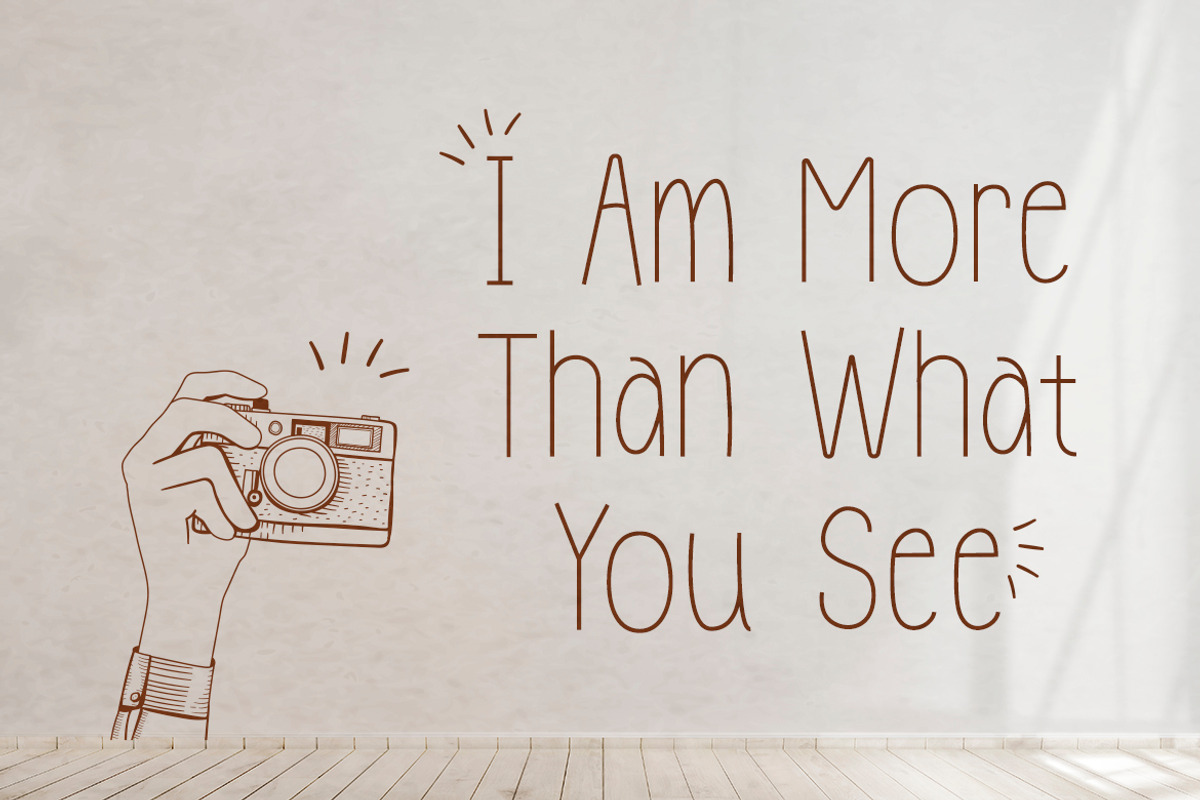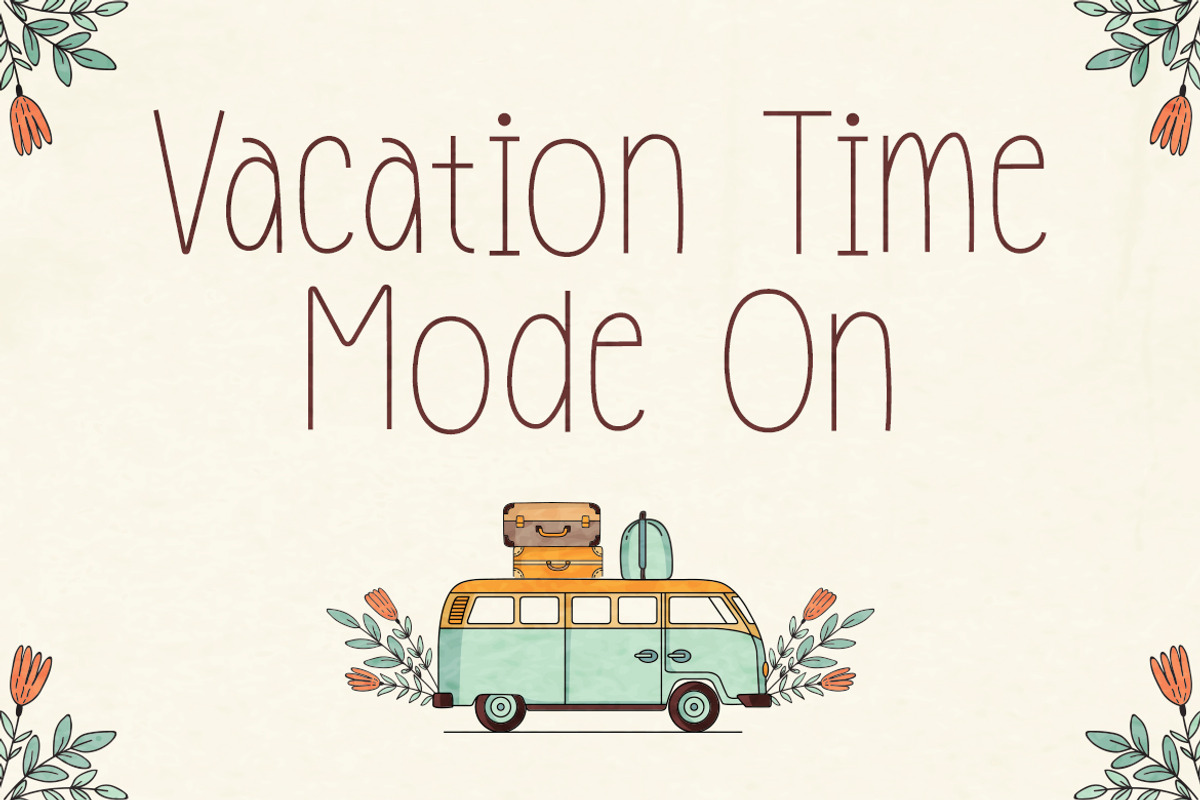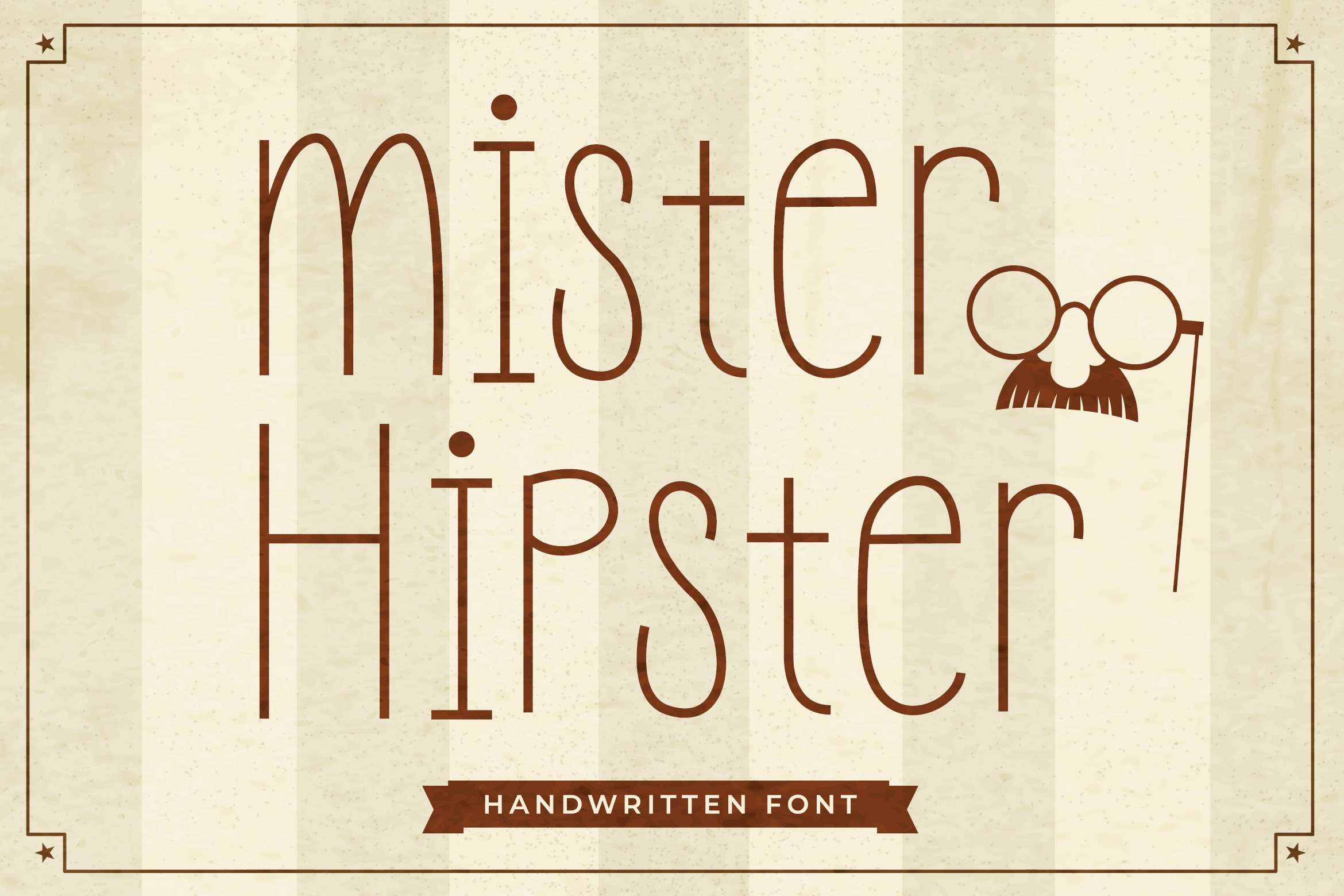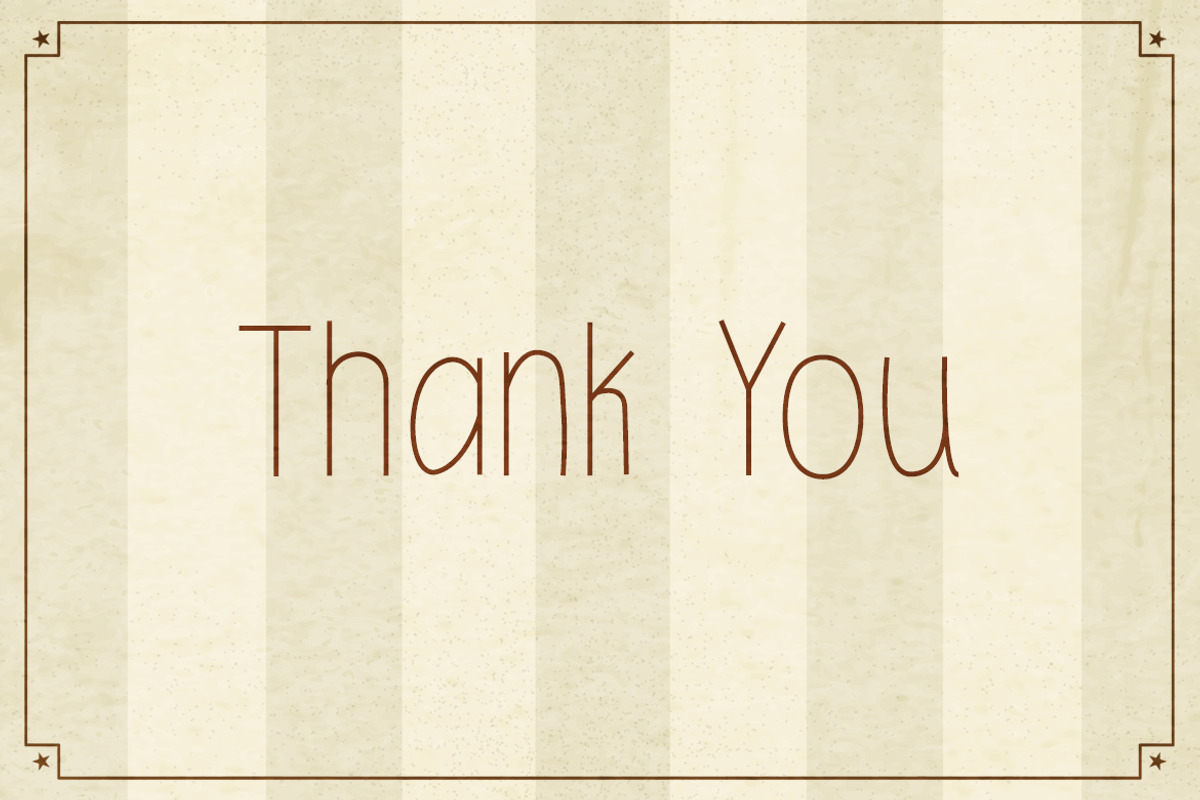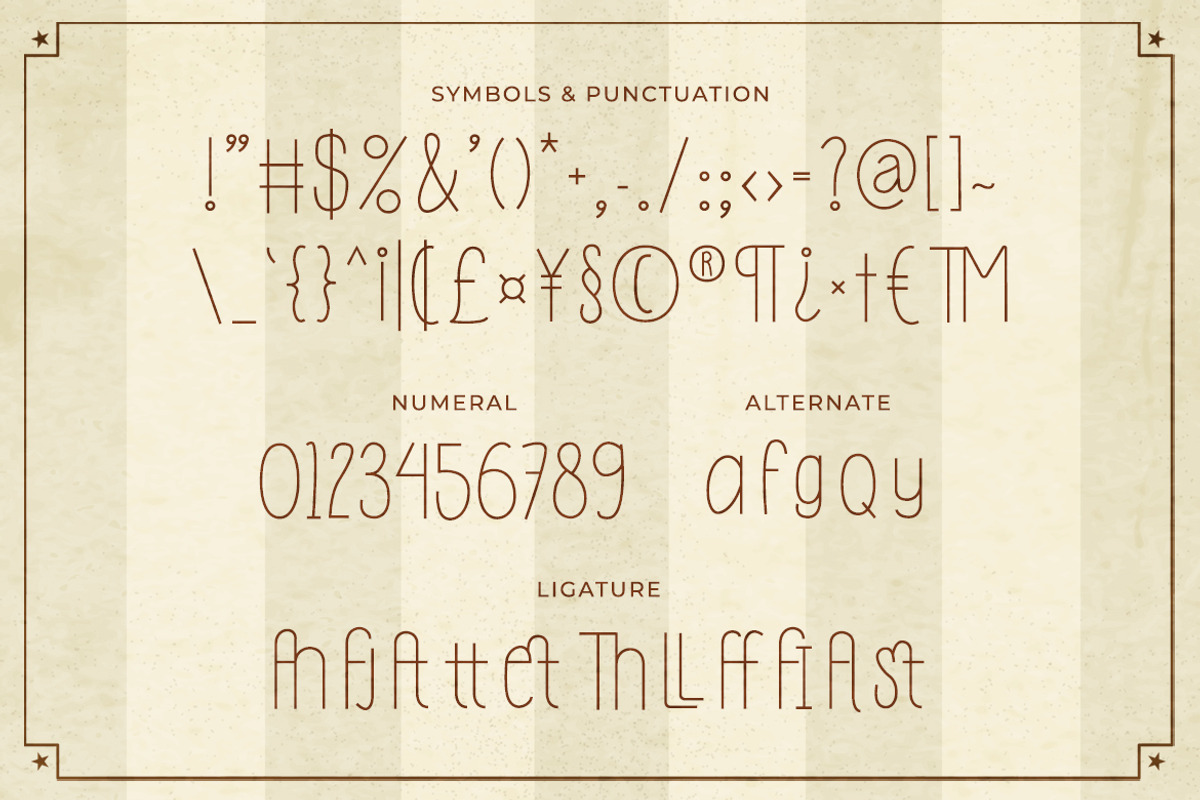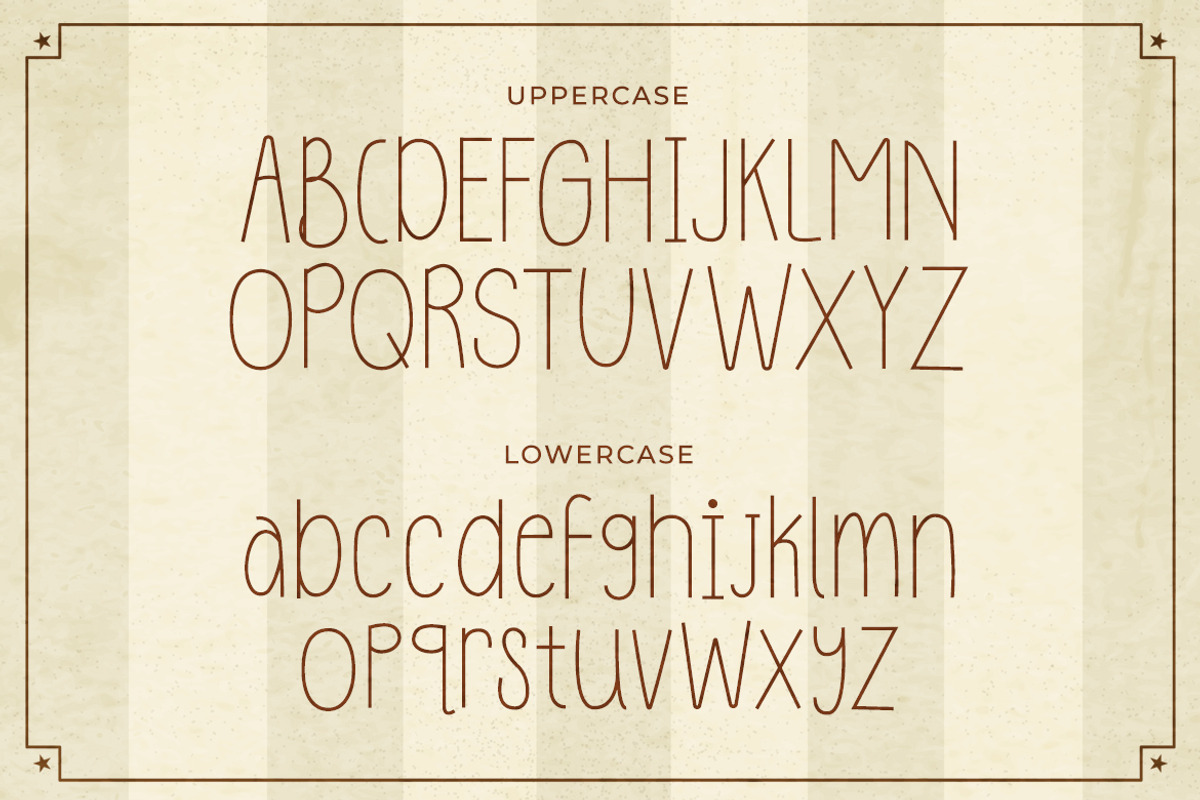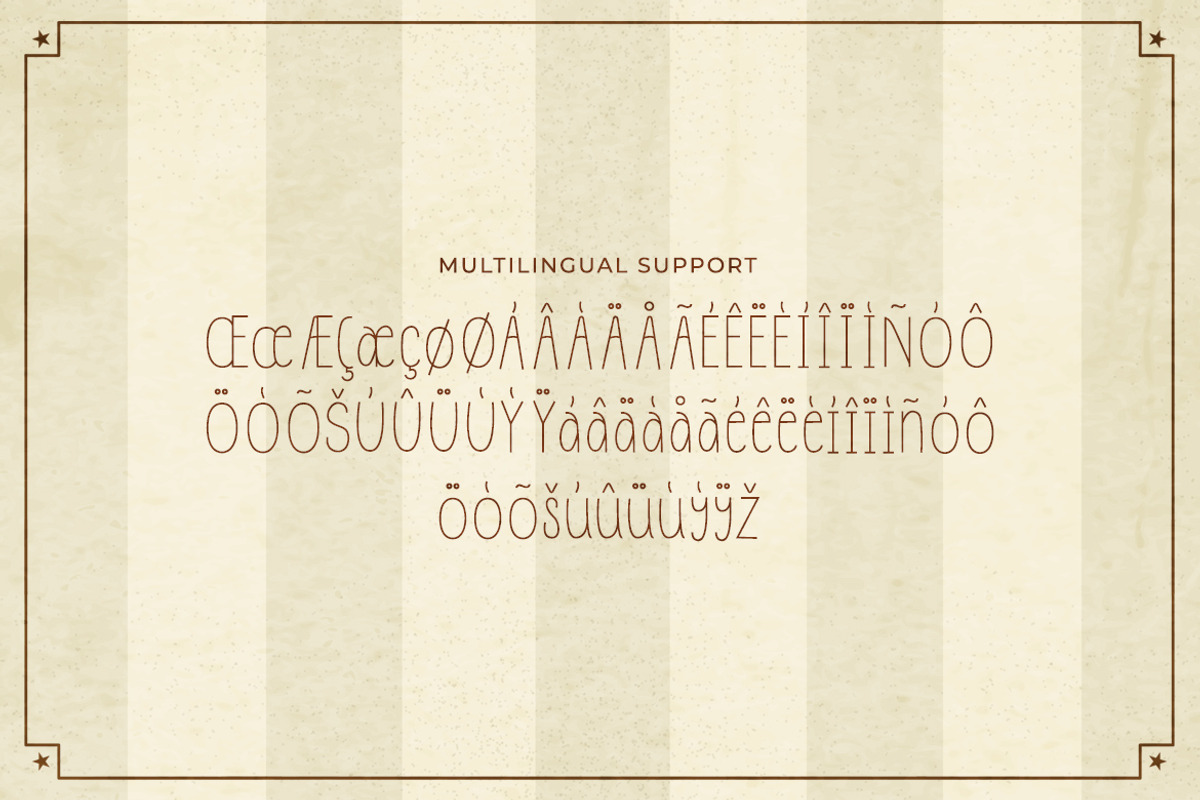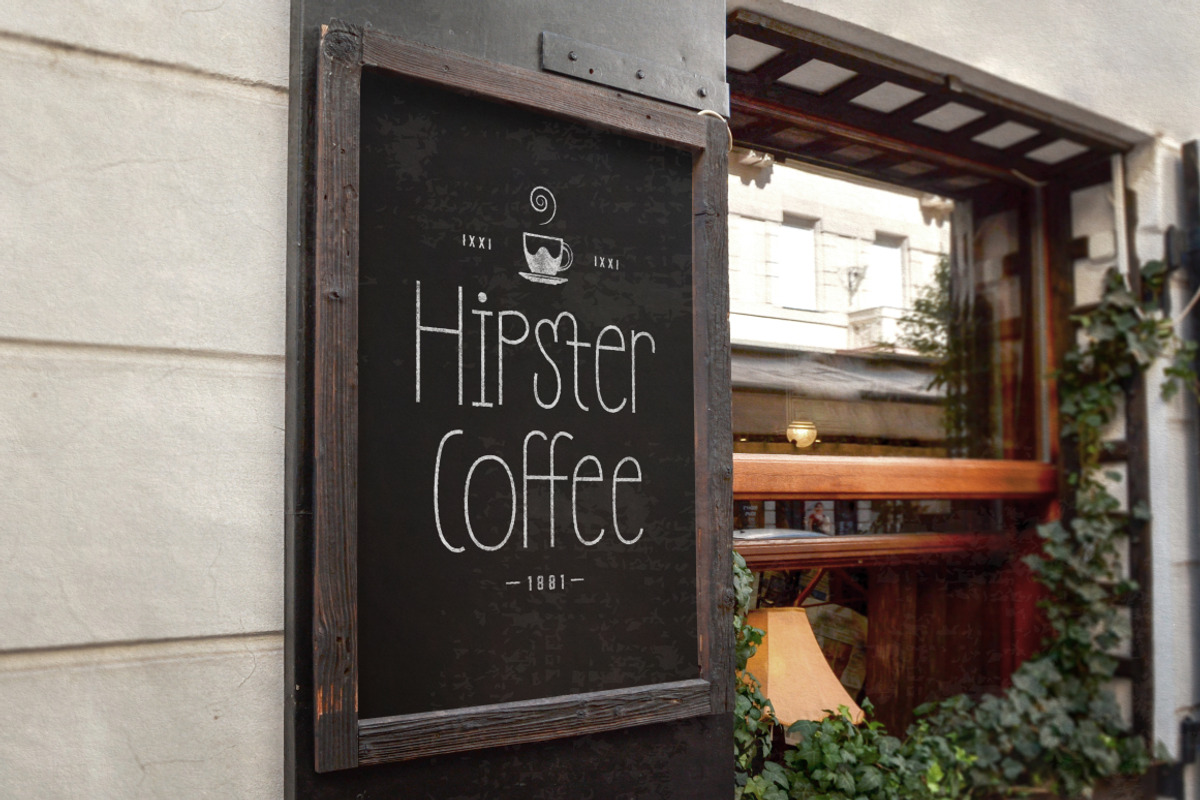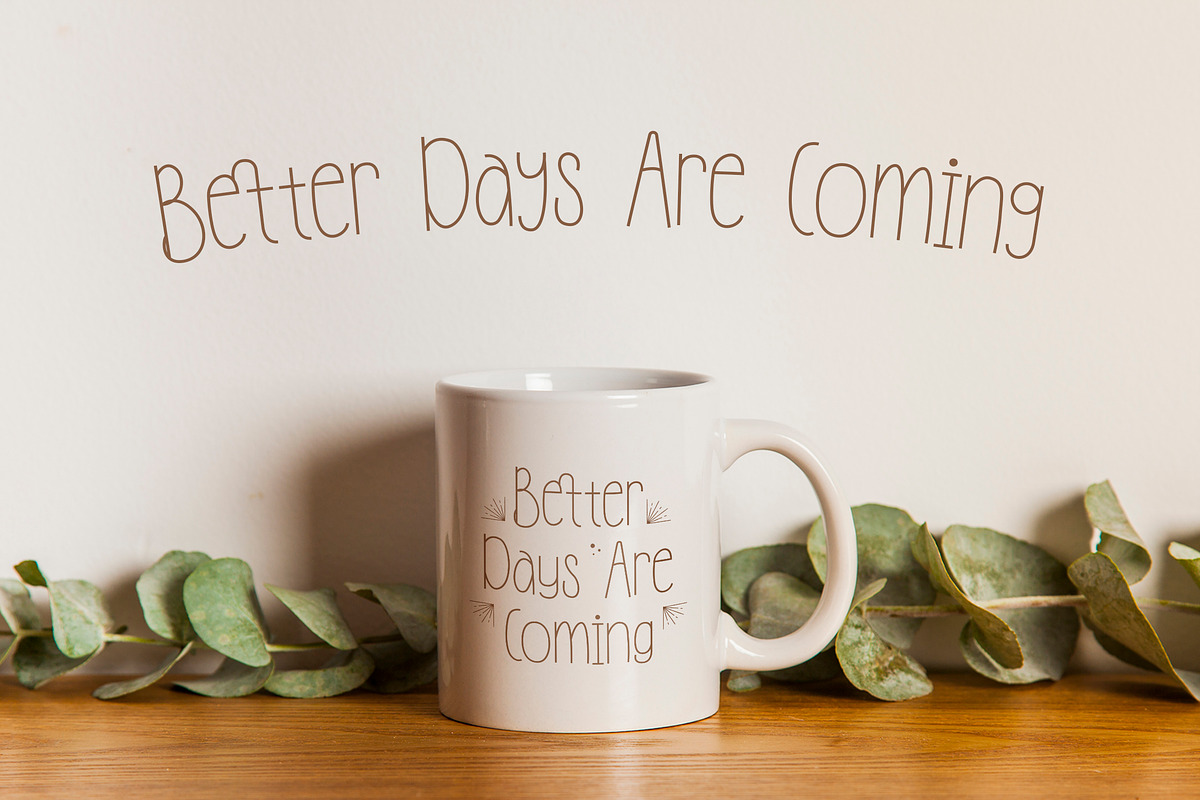
Mister Hipster - Handwritten Font
Mister Hipster is a fun handwritten font. This thin, fun, and stylish font can be used for a host of different content needs and projects. Create gorgeous party invitations, printed quotes, standout packaging, or beautiful t-shirts! You can even use it to create amazing headings, logos, menus, and social media graphics.